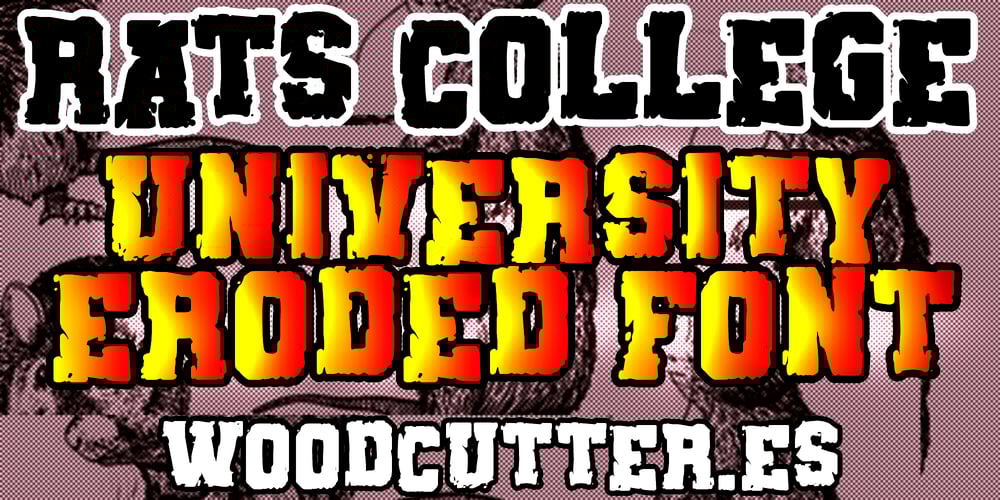
Rats College Font Family was designed by Jordi Manero and published by Woodcutter. Rats College contains 1 styles and family package options. “Rats College” is a university-style typeface with a unique, chaotic, and destroyed touch. Its letters feature imperfections and wear, simulating the passage of time and rough use. It includes accents, making it suitable for various languages and applications. Perfect for projects seeking a rebellious and disordered aesthetic, such as concert posters, album covers, and alternative designs. “Rats College” combines the classic elegance of university style with an air of anarchy, creating a striking and distinctive visual effect.